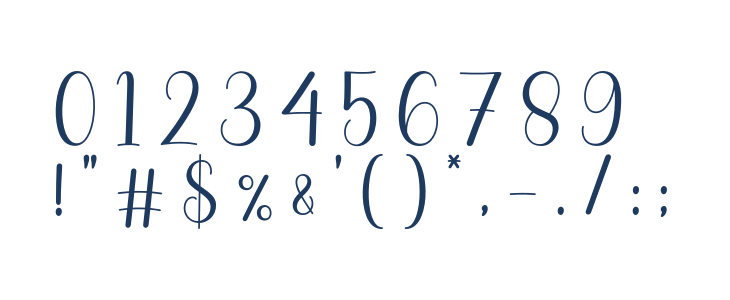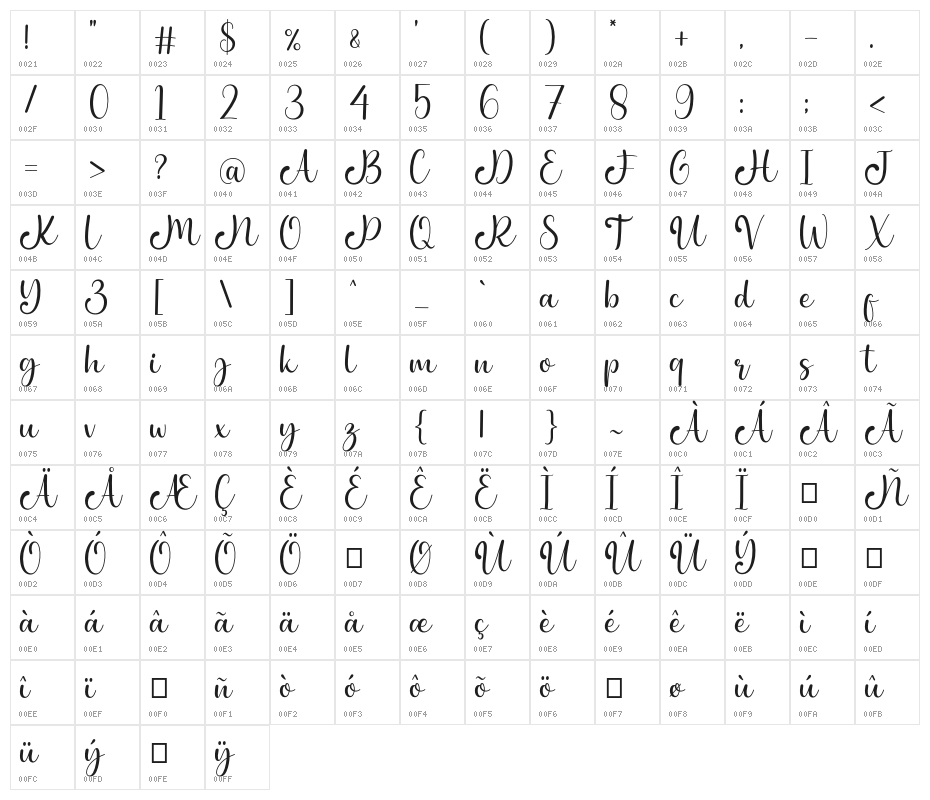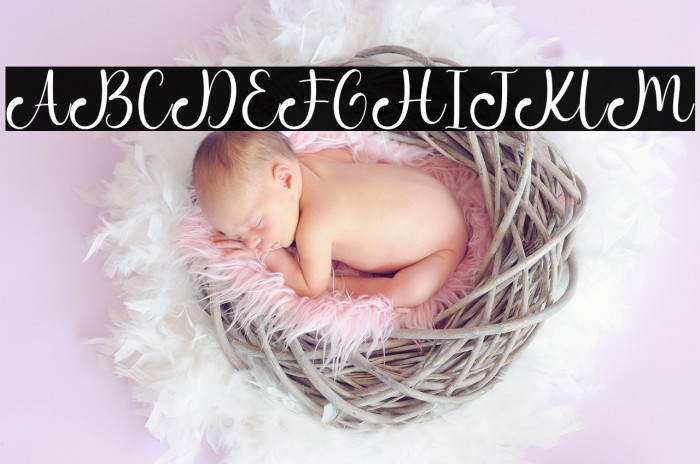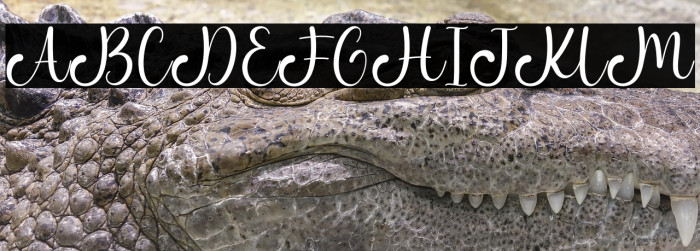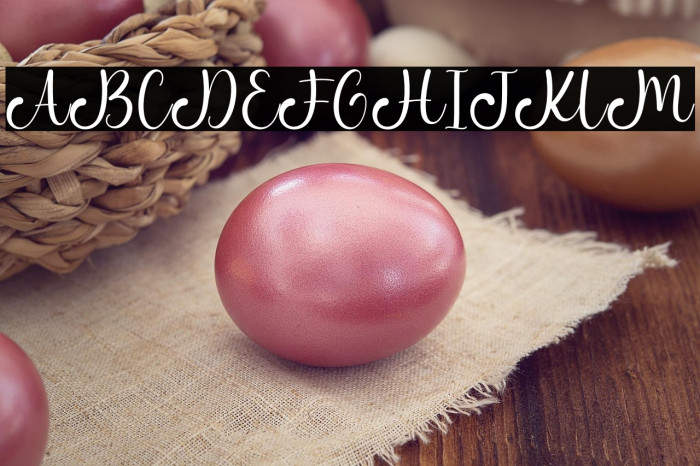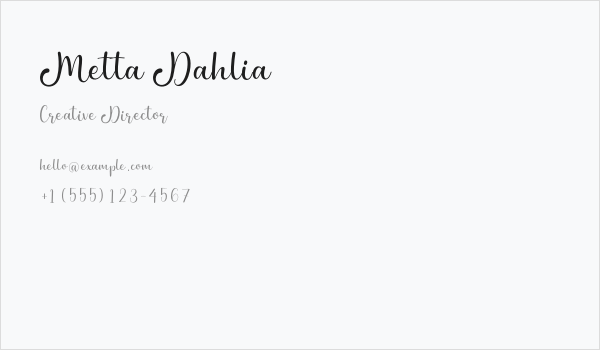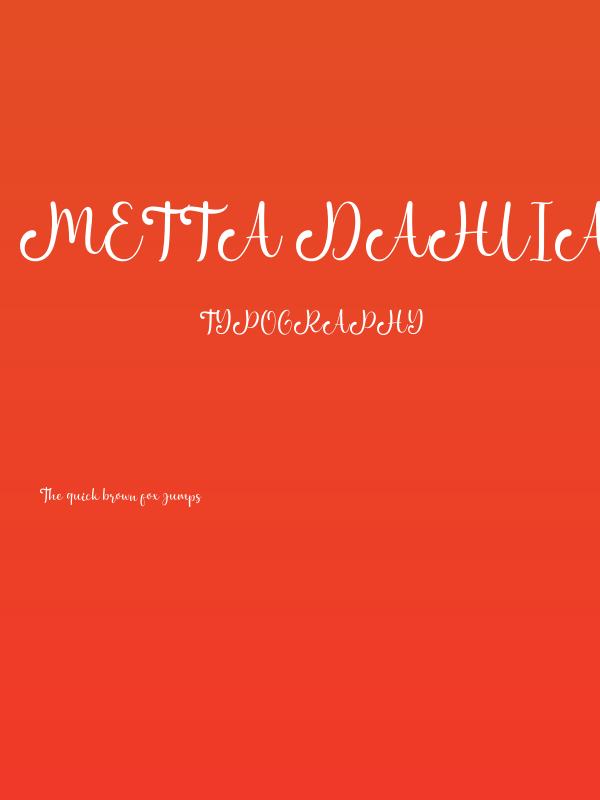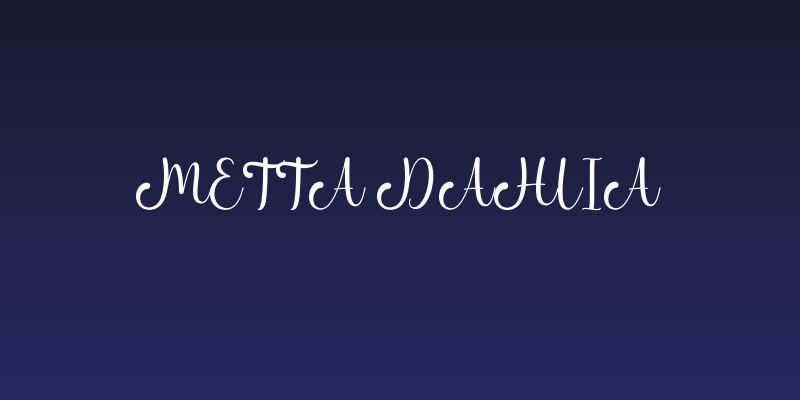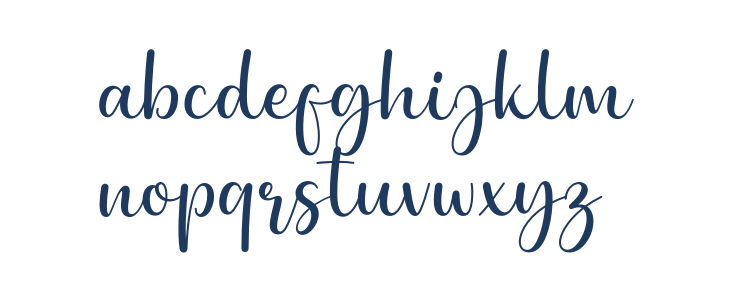
Metta Dahlia Font
Metta Dahlia Description
This font features a playful and elegant script style with a flowing, cursive design. The uppercase letters are characterized by their sweeping curves and loops, giving them a whimsical yet sophisticated appearance. The lowercase letters maintain a consistent flow, with some characters featuring distinctive flourishes that enhance their visual appeal. The numerals are designed with a similar elegance, incorporating subtle curves that align with the overall script style. Special characters are crafted to match the font's graceful aesthetic, making them suitable for decorative purposes. The font's overall design exudes a sense of charm and creativity, making it ideal for projects that require a touch of elegance and personality.
| Use Case | Logos, Invitations, Decorative Text |
| Proposed Projects | Ideal for wedding invitations, greeting cards, branding, and decorative signage. |